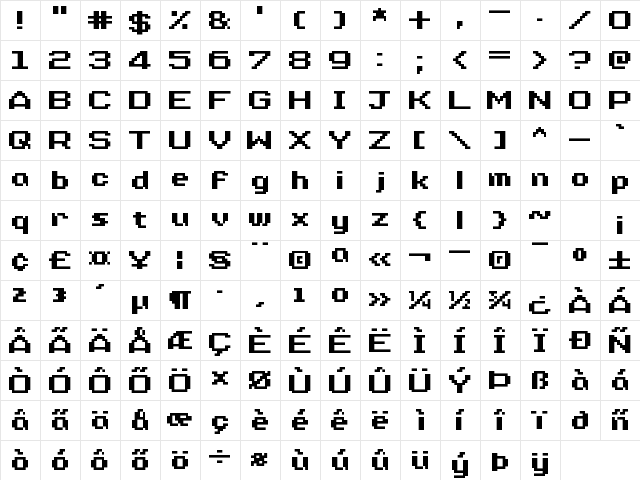
Nineteen Ninety Seven Regular
| Designer | GameDevDan |
Design Context for Nineteen Ninety Seven Typeface
Nineteen Ninety Seven takes a measured approach to typography — its balanced proportions and neutral character make it a reliable workhorse for both digital and print work.